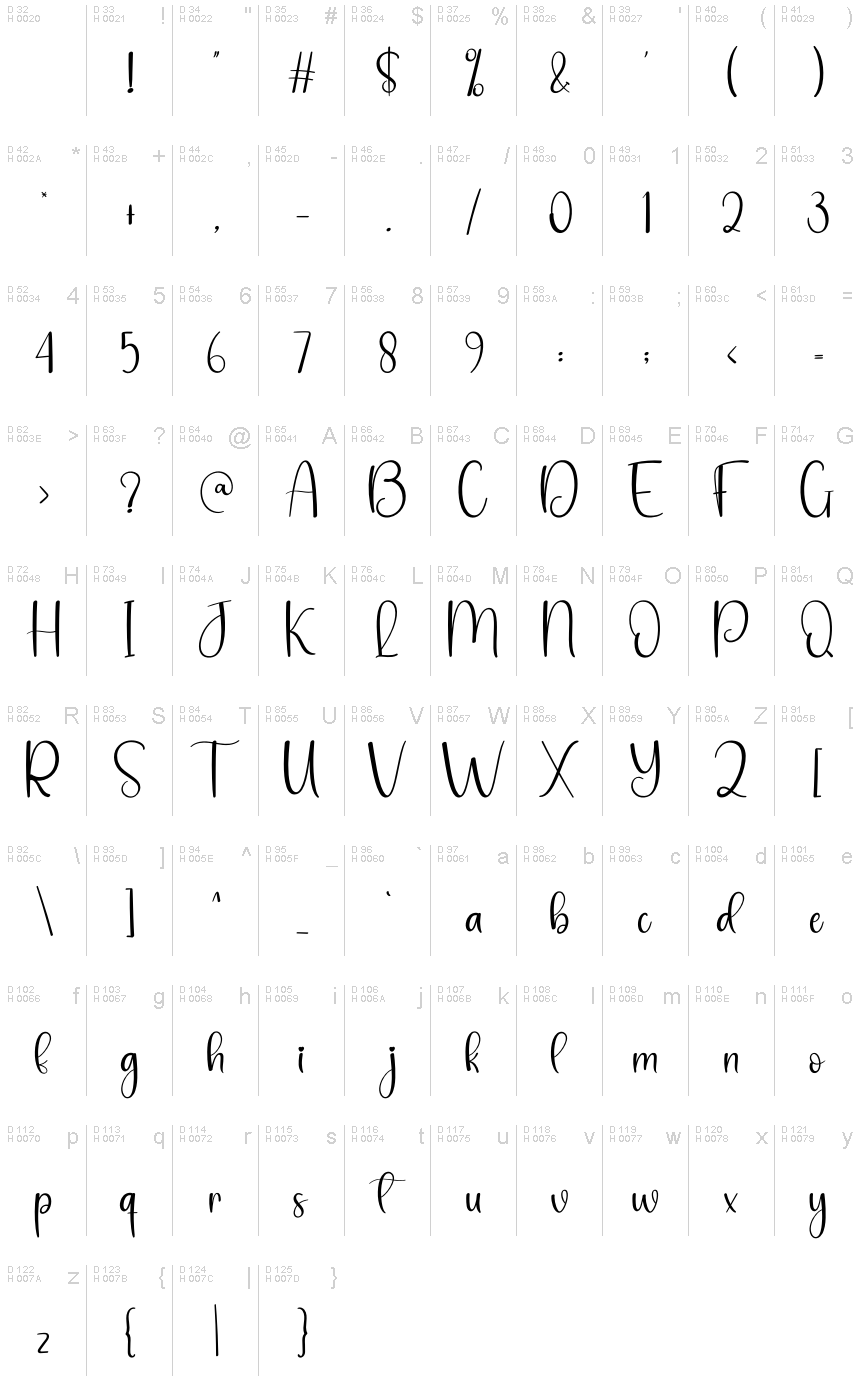
House Bakery
House Bakery is a handwritten font designed by Andi Moz, exuding a warm and inviting aesthetic. Its light, flowing strokes evoke a sense of artisanal craftsmanship, making it an ideal choice for branding and packaging designs in the culinary and hospitality industries. The font's organic, script-like quality lends an air of authenticity and personal touch, perfectly suiting artisanal bakeries, cafes, and specialty food products.
House Bakery's versatility extends to various applications, from logos and headings to labeling and marketing materials, imbuing them with a charming, homemade appeal.